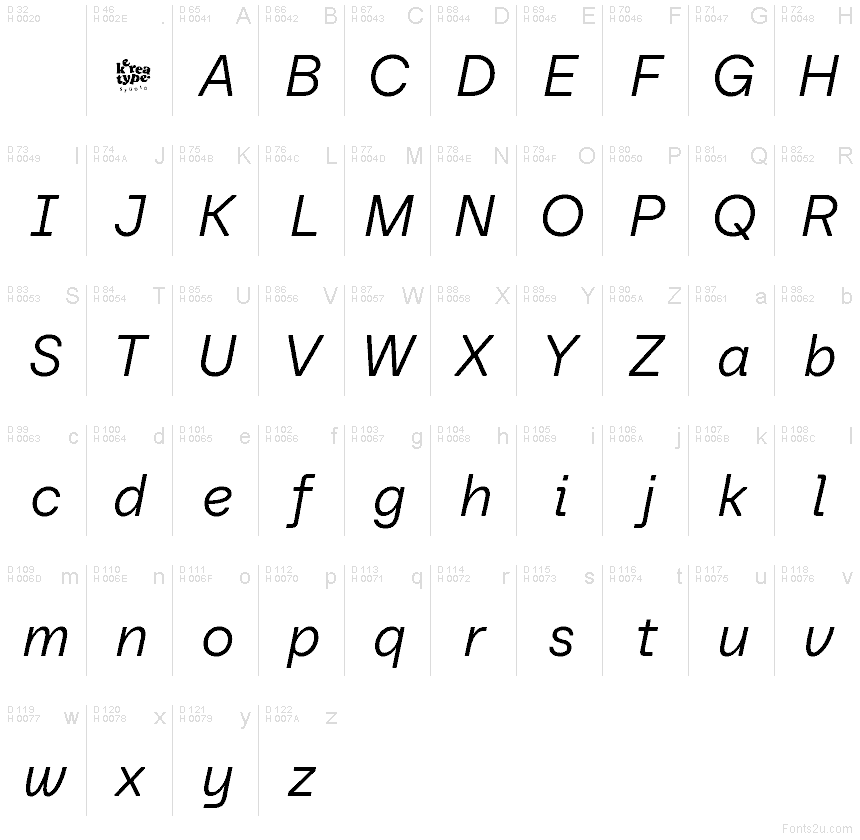
Baru Sans Demo Light Italic
Baru Sans Light Italic font by Kereatype Studio is a free sans serif typeface. When you need emphasis that whispers instead of shouts, this light, forward-leaning cut from the Baru Sans family delivers—clean strokes, generous breathing room, and a gentle slant that adds motion without stealing attention. Its smooth curves and open forms keep text crisp and readable, even at smaller sizes.
Using Baru Sans Light Italic, you can shape product descriptions, pull quotes, photo captions, lifestyle branding, tech landing pages, fashion lookbooks, and UI labels with effortless clarity. This free font adds a polished, modern lilt that guides the eye and softens rigid layouts. Pair it with Baru Sans Regular for hierarchy, or let it shine alone with slightly tighter tracking at large sizes.